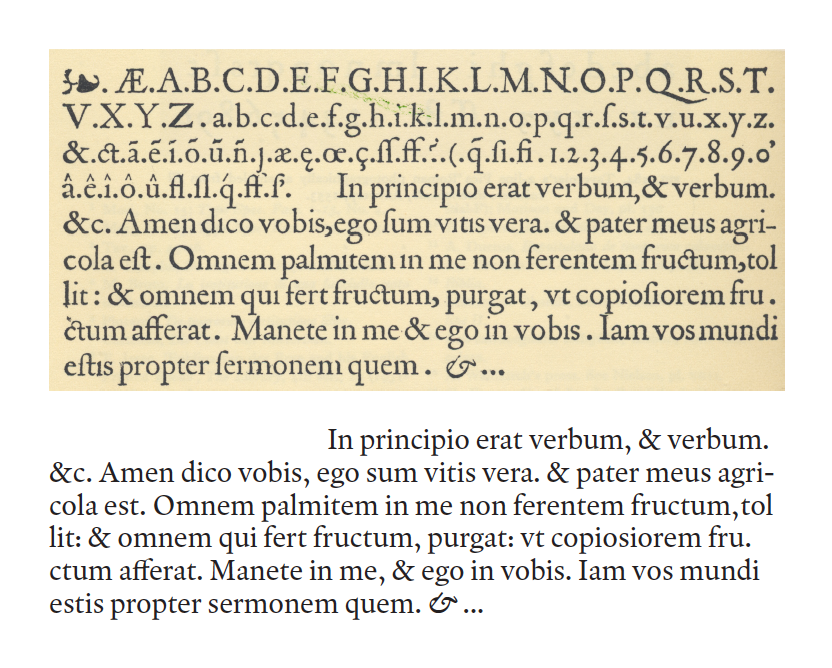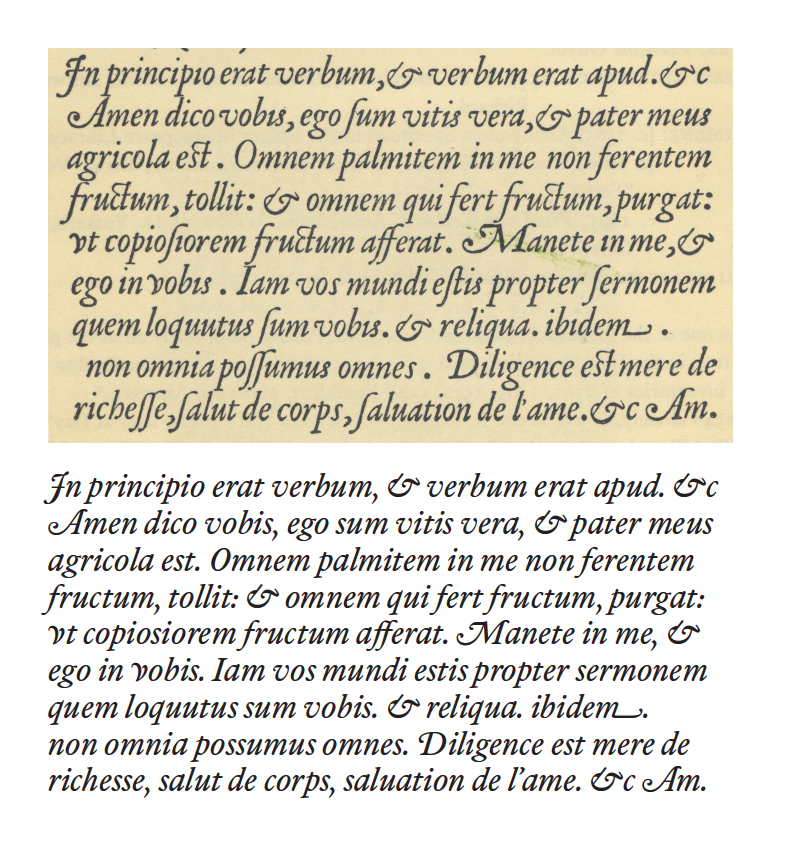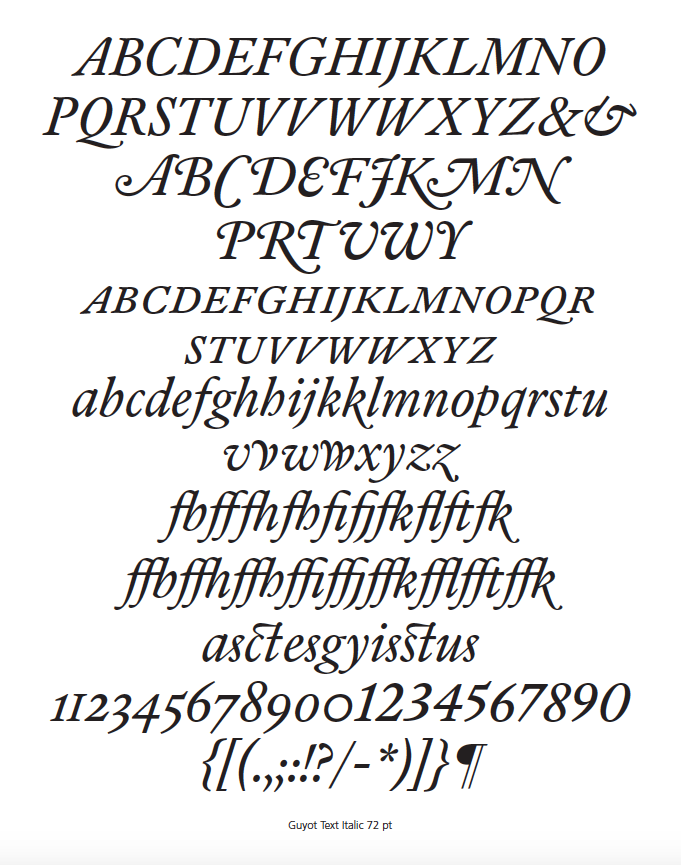
Retype’s Modern Interpretation of François Guyot’s Type
One of the high points of European typography was the 16th century when Simon de Colines, Robert Estienne, Jacques Kerver, Christoffel Plantin and other printers established many of the norms we still follow in book typography today; and punchcutters Claude Garamont, Robert Granjon and Hendrik van den Keere created typefaces we still admire and emulate. The work of these French and Flemish punchcutters lives on in such popular fonts as Stempel Garamond, Sabon, Adobe Garamond, ITC Galliard, Lyon, DTL VandenKeere and Quarto. But the period is so rich in talented punchcutters that contemporary type designers have taken to looking beyond these well-known names for inspiration to the second rank of Antoine Augereau, Pierre Haultin and François Guyot. The latter is the source and namesake of Guyot by Ramiro Espinoza of Retype.
Little is known of the Parisian-born Guyot prior to 1539 when he began working as a punchcutter in Antwerp. Until his death in 1570, he was the principal supplier to Christoffel Plantin, the leading printer of his day. In the last year or two of his life, Guyot was apparently in London providing types to the English printer John Day. His typefaces were not only in great demand in the Netherlands, but also in Germany, Scandinavia, England, Spain and Portugal. In England they were still in use into the 17th century, including in The King James Bible (1611) and several folio and quarto editions of Shakespeare.
Just before his untimely death in 2003, Frank Heine designed Tribute, a typeface based “third-hand” on Guyot’s Ascendonica roman (1544) and Ascendonica italic (1557) types. He described it as “third-hand” because his source was a photocopy of a reprint of a type specimen. Because of this and other reasons, Heine’s version of Guyot’s faces is notable for its low stroke contrast and chunky serifs. But at heart Tribute is surprisingly faithful to its model. In contrast, Espinoza’s Guyot, despite its name, is much less authentic—and, on the whole, better for not being so.
Guyot was a punchcutter of the second rank. His types lack the consistency and refinement of those of Garamont and Granjon. They are often awkward and because of that have a sense of charm. That is what drew Heine to them. He liked the tension between the French Renaissance perfection that some letters achieved and the lack of polish in others. Guyot’s inconsistency also caught Espinoza’s attention. But instead of reveling in it, he sought to integrate the most interesting elements of the punchcutter’s Gros Canon (1546) and Ascendonica (1544) types into a modern interpretation that could function in today’s editorial market.
In Guyot, Espinoza has altered, erased and ignored much of the personality that makes the types of Guyot the punchcutter so distinctive. Gone are the tall ascenders, the small eye of ‘e,’ the quirky ‘g’ with its small bowl and long neck, the straight tail of ‘y,’ the clumsy ‘M’ and ‘N,’ the strangely bent tail of ‘Q,’ and so on. In their place are letters that are more refined with more open counters, consistent serifs and a larger x-height. In short, Guyot is a typeface of the 21st century rather than the 16th. What survives of the original Guyot—at least in the roman—are small traces such as the shape of the top curve of ‘a,’ the curvature of the hook of ‘f’ and arm of ‘r,’ the spike on ‘q,’ the spur serifs of ‘C’ and ‘G,’ the sharp bottom serif of ‘E’ and ‘L,’ the leg of ‘R,’ the pigeon-toed serifs of ‘X,’ and the swoop of ‘3.’ These are little touches, but in the aggregate they infuse Espinoza’s design with a character that sets Guyot apart from types inspired by Garamont and Granjon.
The weakest aspect of Guyot’s types is his capitals. And that is where Espinoza’s transformative magic is most evident. He has created a harmonious whole while still retaining many of the subtle aspects that give Guyot’s Gros Canon and Ascendonica types their personality. He has tossed out the quirky yet ugly ‘M,’ ‘N’ and ‘Q’ that instantly identify Guyot’s Ascendonica in favor of keeping less obvious yet equally flavorful letters such as the ‘G’ with a high jaw and the ‘S’ with a slight cant.
The Parisian punchcutter was at his best in his italics, especially the lowercase of the Ascendonica. There is little to complain about and much to celebrate. The leg of the swash ‘k’ is a bit weak and, as with almost all French Renaissance italics, the ‘v’ and ‘w’ feel out of place. But overall, there is a graceful—and very French—flow to Guyot’s italic. The ‘g’ is particularly lovely and the ‘ff’ ligature has a wonderful lilt. They are both gone in the Retype Guyot. Espinoza’s interpretation has more of a “Dutch” sensibility due to its larger x-height and more open counters (most notable in the ‘a,’ ‘b,’ ‘d’ and ‘q’). It is still a very pleasing italic, but it is significantly different in tone.
Guyot’s italic capitals were uneven in quality. But once again, Espinoza has knocked them into shape. He has opened up the overly narrow ‘A’ and ‘V,’ improved the curves on the swash capitals (especially the ‘J’), and added missing regular capitals (such as ‘R’). At the same time he has kept the jaunty swash ‘M’ and redrawn the swash ‘T’ to have more zest. Unaccountably, he has dropped the swash ‘G’ and the second, more elaborate, swash ‘N.’
Retype Guyot was designed for editorial purposes, hence the large x-height and the removal of characters with too much character. Thus, in the roman there are no quaint ‘ct’ and ‘st’ ligatures; only in the italic. But not all is severe. Espinoza has included a suite of beautiful leaf ornaments and a less exciting manicle. Retype Guyot has two optical sizes: Guyot Headline in four weights (Light, Regular, Bold and Black), each with a corresponding italic; and Guyot Text in three weights (Regular, Bold and Extrabold) with matching italics. The discrepancy between the weights of the two sets is unusual in this age of formulaic and standardized type families. However, it is an inconsistency that should have little impact on actual typographic practice as any good designer will simply match the weights that look best together for a project rather than worry about their names.
In the end Retype Guyot is more Espinoza than Guyot. For most designers this should not matter. The heritage of a typeface is less important than its functionality and its fitness for purpose. In that, the new Guyot is a welcome addition to the increasingly crowded ranks of typefaces. It may not stand out amidst all of the sans serifs and scripts clamoring for attention, but that is a tribute to its quiet but solid demeanor—the perfect choice for an editorial project.